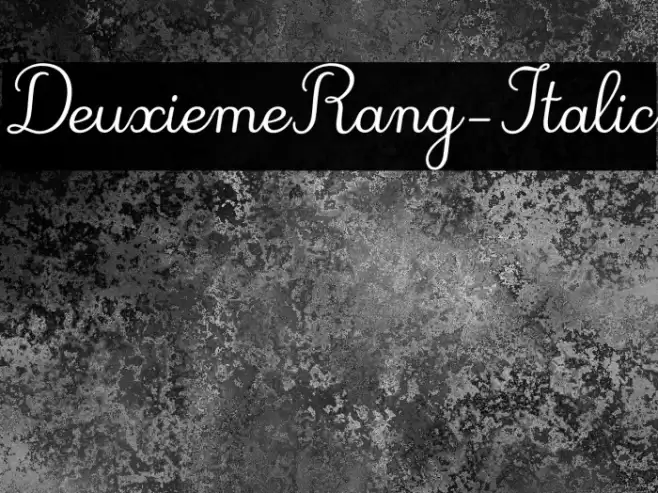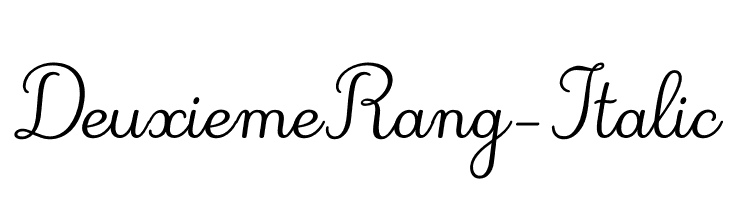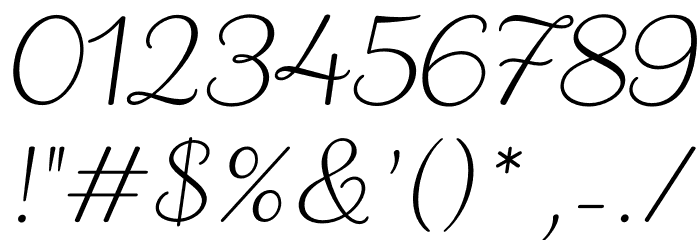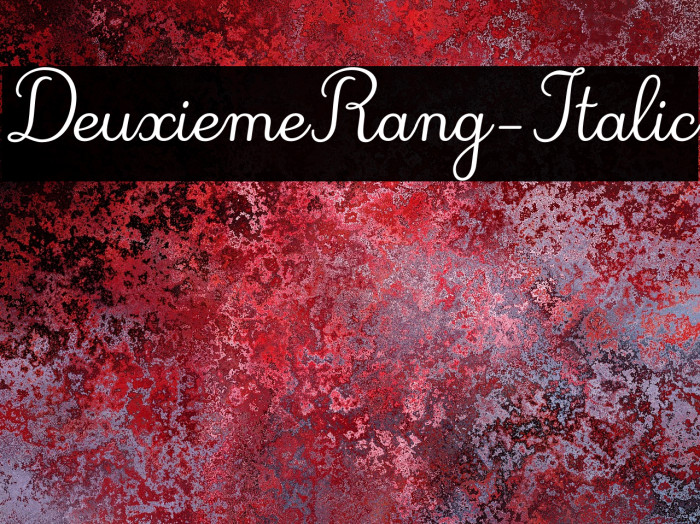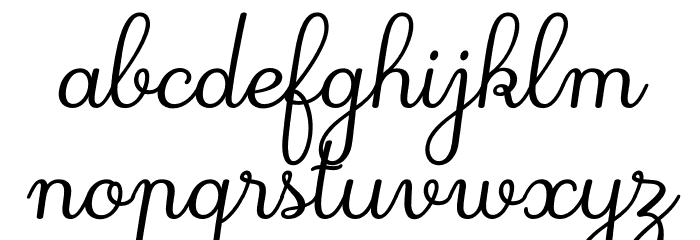
DeuxiemeRang-Italic Font
DeuxiemeRang-Italic Description
This elegant script font features a smooth, flowing style with a distinct italic slant. The uppercase letters are gracefully connected, while the lowercase letters exhibit a charming cursive form. The numerals maintain the same fluidity, ensuring consistency throughout. Special characters are designed with the same attention to detail, making them blend seamlessly with the rest of the typeface. The strokes are moderately thick, providing a balanced contrast that enhances readability without sacrificing the font's decorative appeal. This font is perfect for projects that require a touch of sophistication and elegance.
A graceful script font with a flowing italic style and moderate stroke contrast from Uncategorized fonts.
- Proposed Projects: Ideal for wedding invitations, elegant branding, greeting cards, and high-end product packaging.
- Overall Style: Elegant
- Use Case: Logos, Invitations, Decorative text